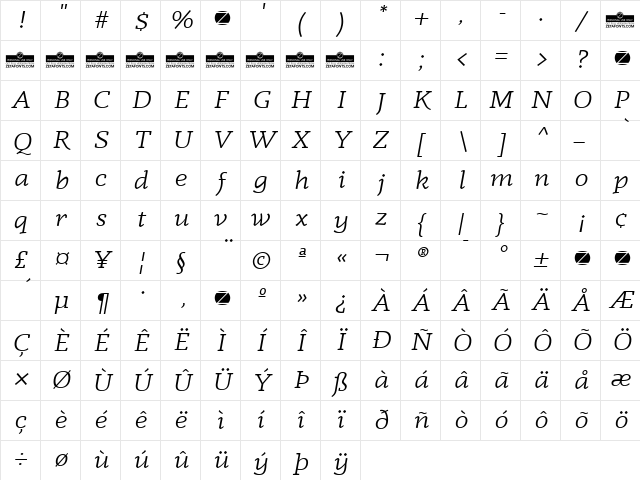
Complete Radcliffe Display Book Italic glyph index. Displaying only characters natively supported by Radcliffe Display Book Italic font.
Radcliffe Display is built around its visual character rather than neutral utility - its distinctive forms are designed to make an impression at display sizes. The slanted form adds forward momentum and visual energy.
Font Pairing: Pair with a clean neutral sans-serif for body copy to let Radcliffe Display's character lead without overwhelming the composition.
Pro Tip: Use Radcliffe Display exclusively at display sizes - it was designed to be seen, not read at length. Let a neutral companion handle body copy.